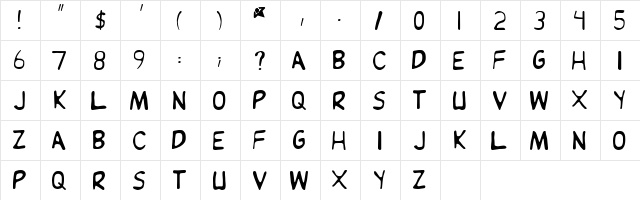
Jean is Dead Regular
Design Context for Jean is Dead Typeface
Jean is Dead is a composed and adaptable typeface that performs quietly and consistently across a wide range of design contexts.